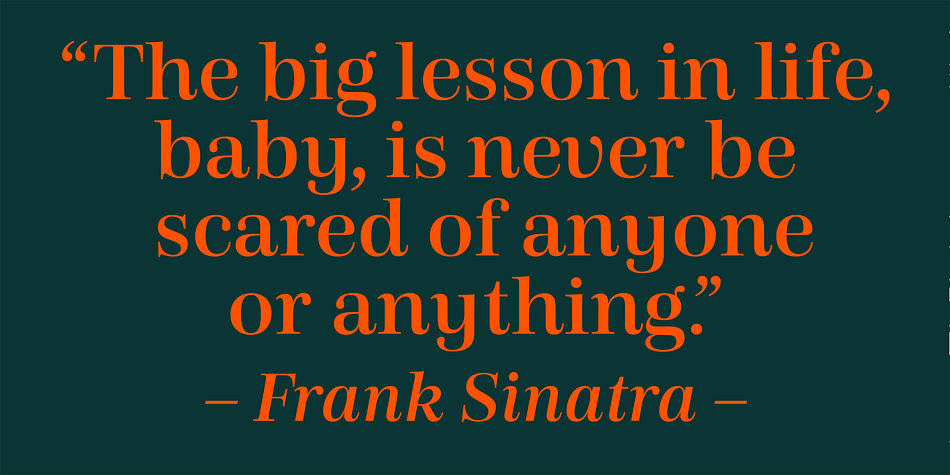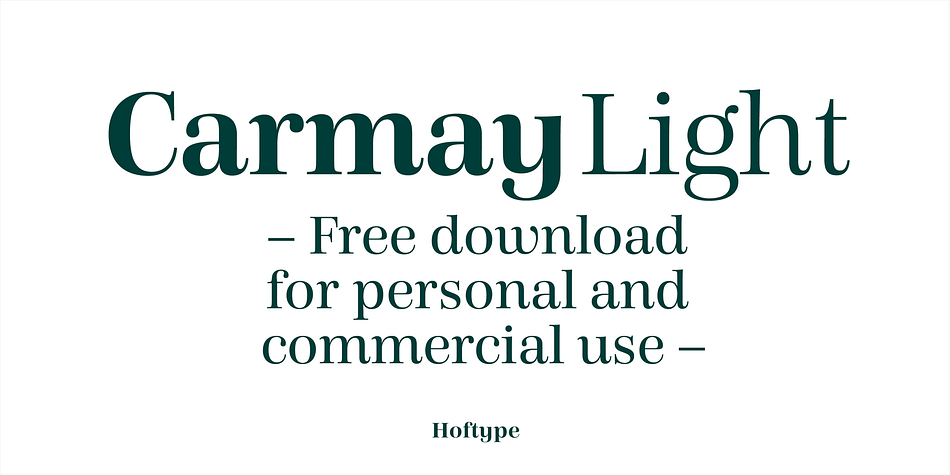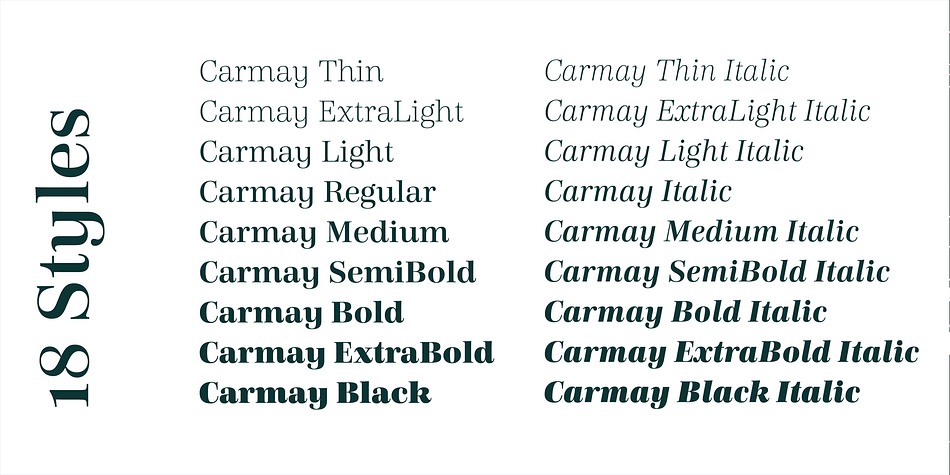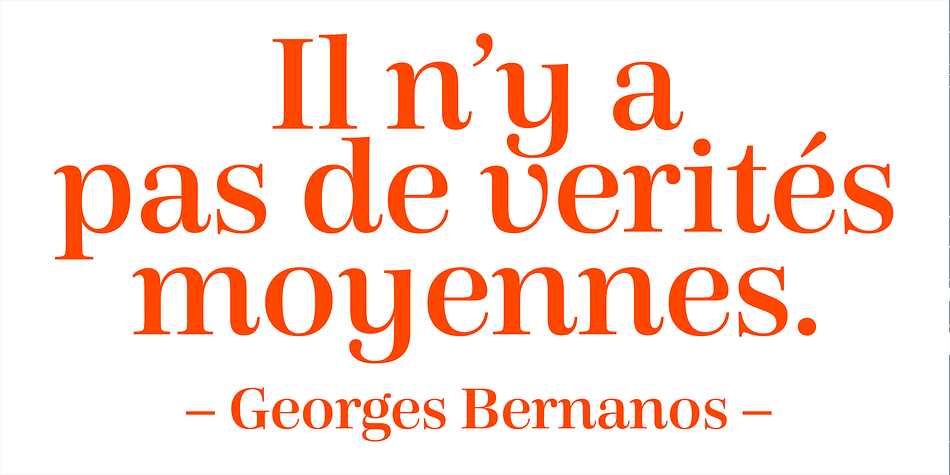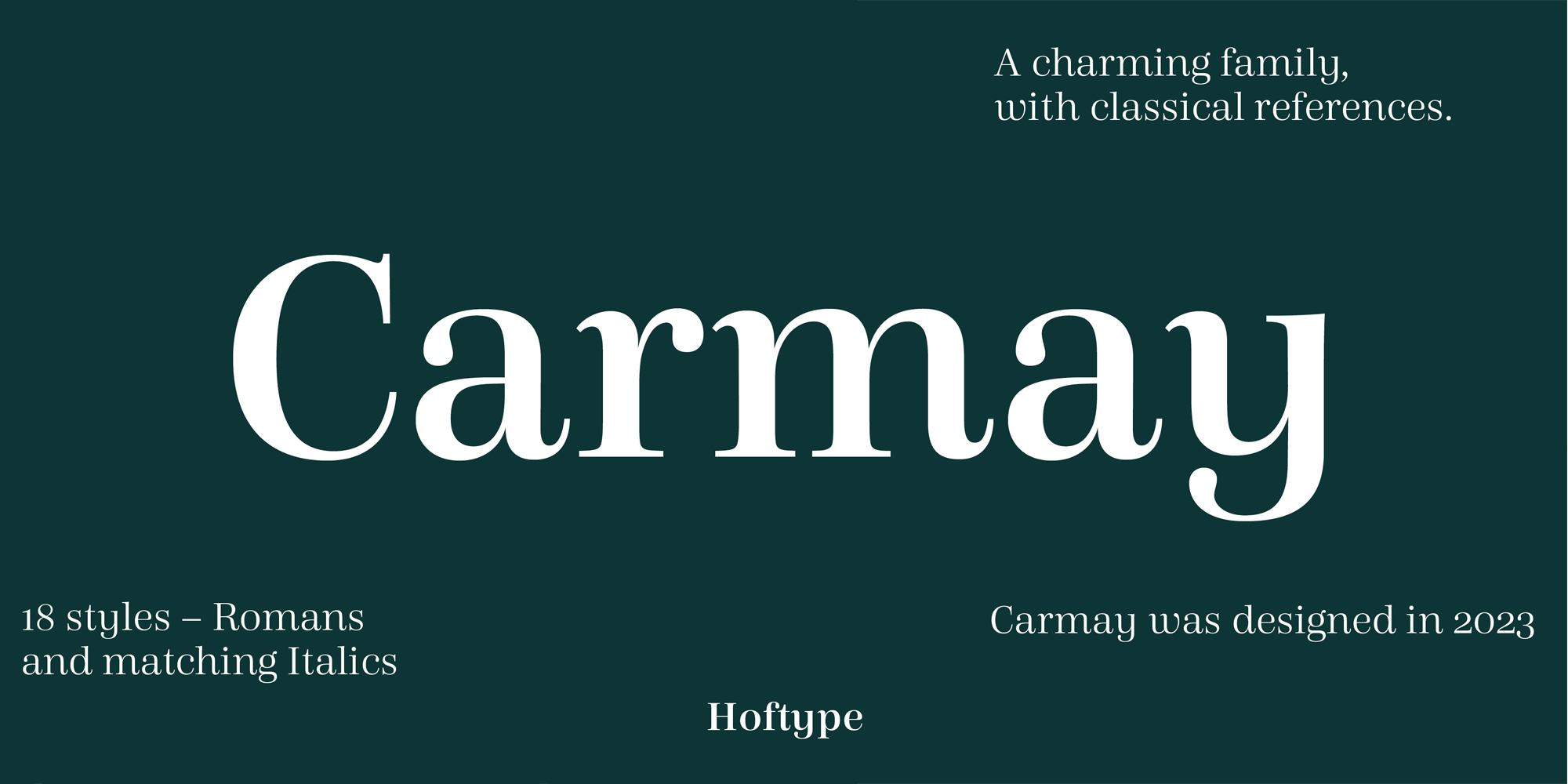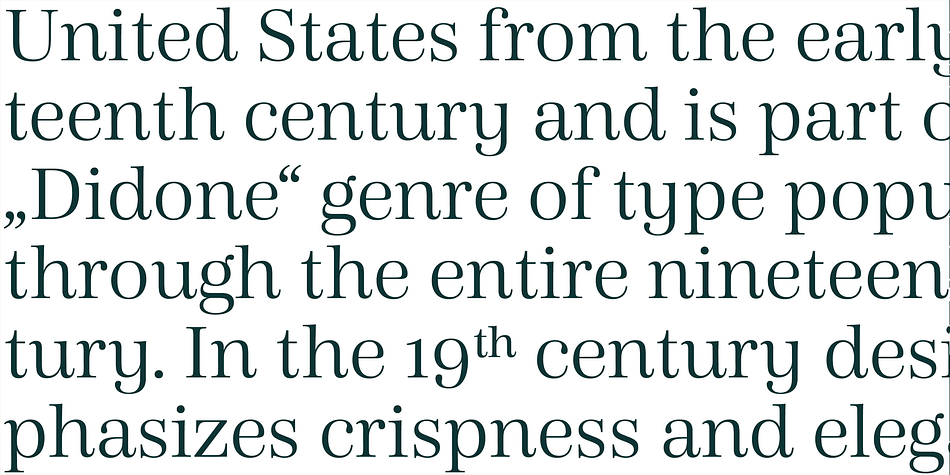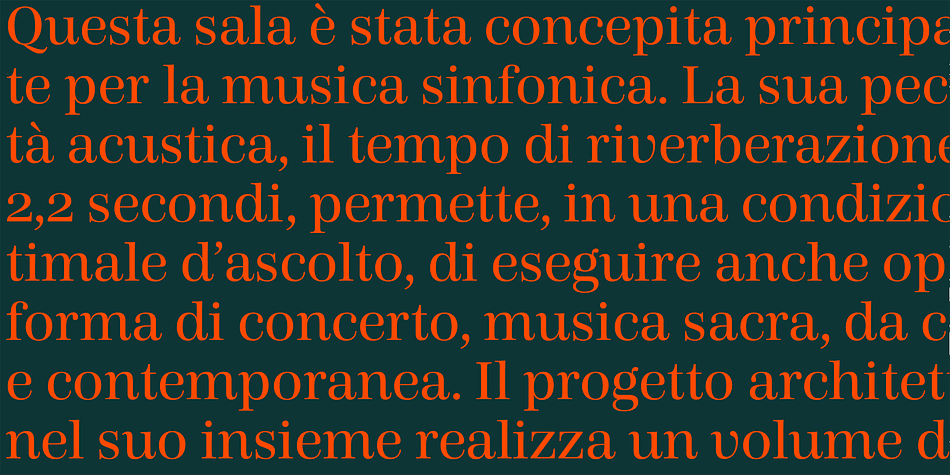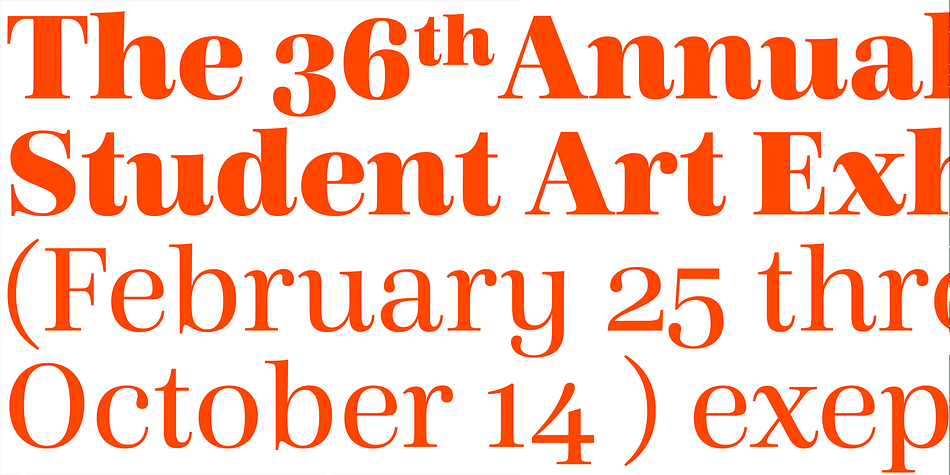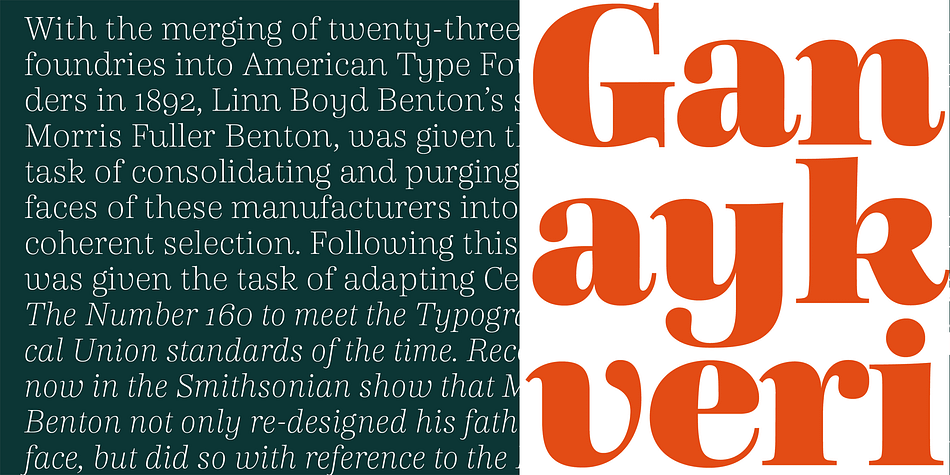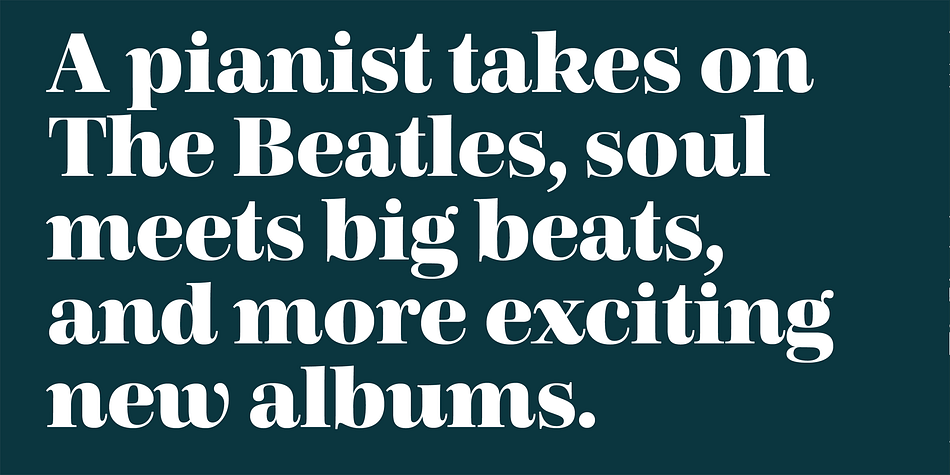
Carmay
Designed by Dieter Hofrichter, Carmay is a serif font family. This typeface has eighteen styles and was published by Hoftype.
Carmay was conceived as a charming, gently flowing member of the didonesque family. The roman weights present some hybrid characteristics, which results in an appearance of informality and adds a dash of brio. Carmay, nonetheless, remains restrained and committed to a classical ethos.
All weights contain standard and optional ligatures, superior characters, proportional lining figures, tabular lining figures, proportional old style figures, lining old style figures, matching currency symbols, fraction- and scientific numerals, matching arrows.